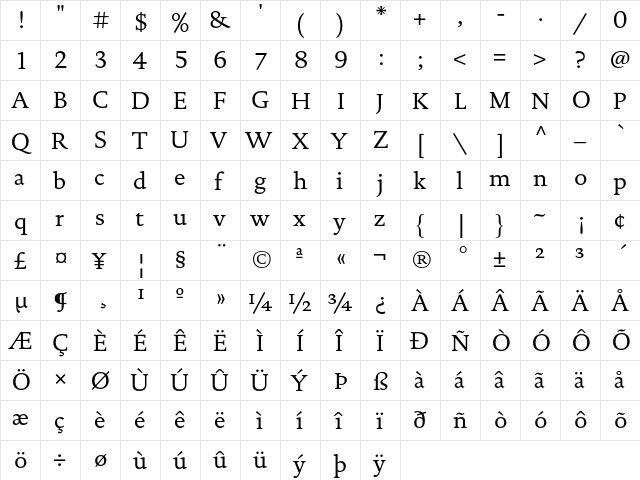
Documenta Dtl Regular Regular
Design Context for Documenta Dtl Regular Typeface
Documenta Dtl Regular takes a measured approach to typography — its balanced proportions and neutral character make it a reliable workhorse for both digital and print work.